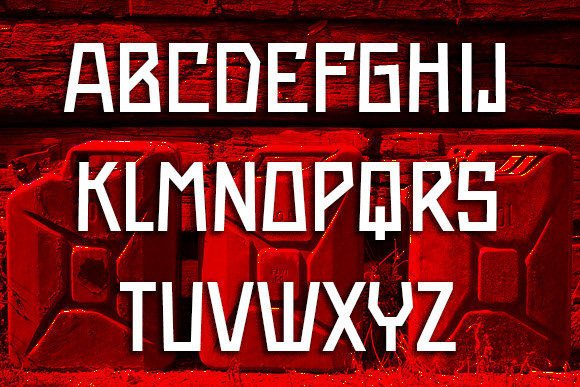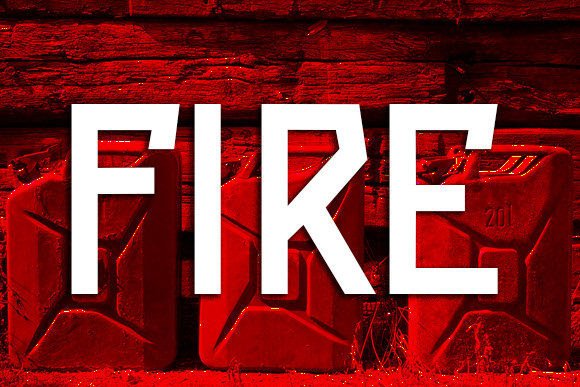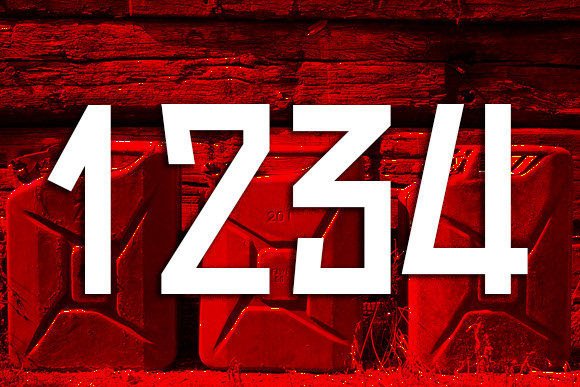
The Ultimate Guide to Benzintank Font: Elevate Your Designs with this Edgy Display Font
I’ll never forget the time I was working on a project for a trendy new restaurant, and I just couldn’t find the right font to capture their edgy, modern vibe. The client was specific about wanting something that would stand out on their menu, posters, and flyers, but everything I tried seemed either too bland or too over-the-top. That’s when I stumbled upon Benzintank Font, and let me tell you, it was love at first sight! ✨
An Honest Review of Benzintank Font
- 💥 **Unique and Edgy Design**: Benzintank Font has a distinct, bold style that’s perfect for making a statement on any design project.
- ✅ **Highly Versatile**: This font can be used on a wide range of projects, from food menu designs and posters to flyers, prints, and more.
- 🎨 **Designer’s Dream**: With its wide range of OpenType features, glyphs, and stylistic alternates, Benzintank Font offers endless creative possibilities.
While Benzintank Font is an amazing addition to any design project, there are a few things to keep in mind: 🤔
- ⚠️ **Legibility at Small Sizes**: As with many display fonts, Benzintank may not be the best choice for body text or small font sizes, as it can become difficult to read.
- ⚠️ **Limited Use on Certain Platforms**: Some platforms or software may not support all of the advanced OpenType features and glyphs that make Benzintank so versatile.
The Backstory Behind Benzintank Font
Benzintank Font was inspired by the raw, industrial aesthetic of old-school gas pumps and machinery. 💧 The designer, a self-proclaimed font enthusiast, wanted to capture the rugged, no-nonsense spirit of these industrial icons in a font that would be both bold and beautiful. The result is a font that’s equal parts edgy and elegant – perfect for designers who want to add a bit of attitude to their work.
| What makes Benzintank Font so special? | Benzintank Font’s unique blend of industrial grit and modern style makes it perfect for designers who want to add some edge to their work. |
| Is Benzintank Font suitable for body text? | While Benzintank Font is amazing for headings and titles, it’s not the best choice for body text due to its display font design. |
| Is Benzintank Font easy to read? | As a display font, Benzintank is designed to be attention-grabbing, but may not be the most legible at small sizes. |